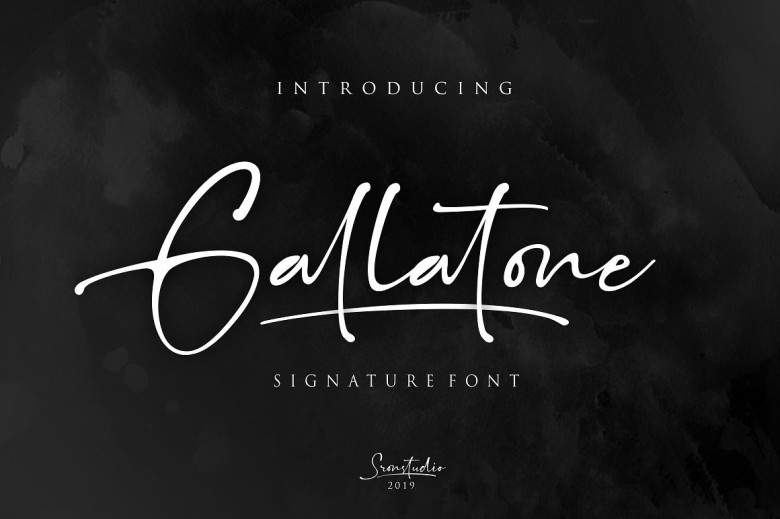
Gallatone Signature Font
Hello world..!! A new classic signature font. This font are perfect for all brand. Introducing Gallatone font! Gallatone – a new modern signature with natural lines make this font perfect for your personal branding and any awesome project, such as : logos, invitations, stationery, wedding designs, social media posts, advertisements, product packaging, product designs, labels, photography, watermarks, special events and much more !